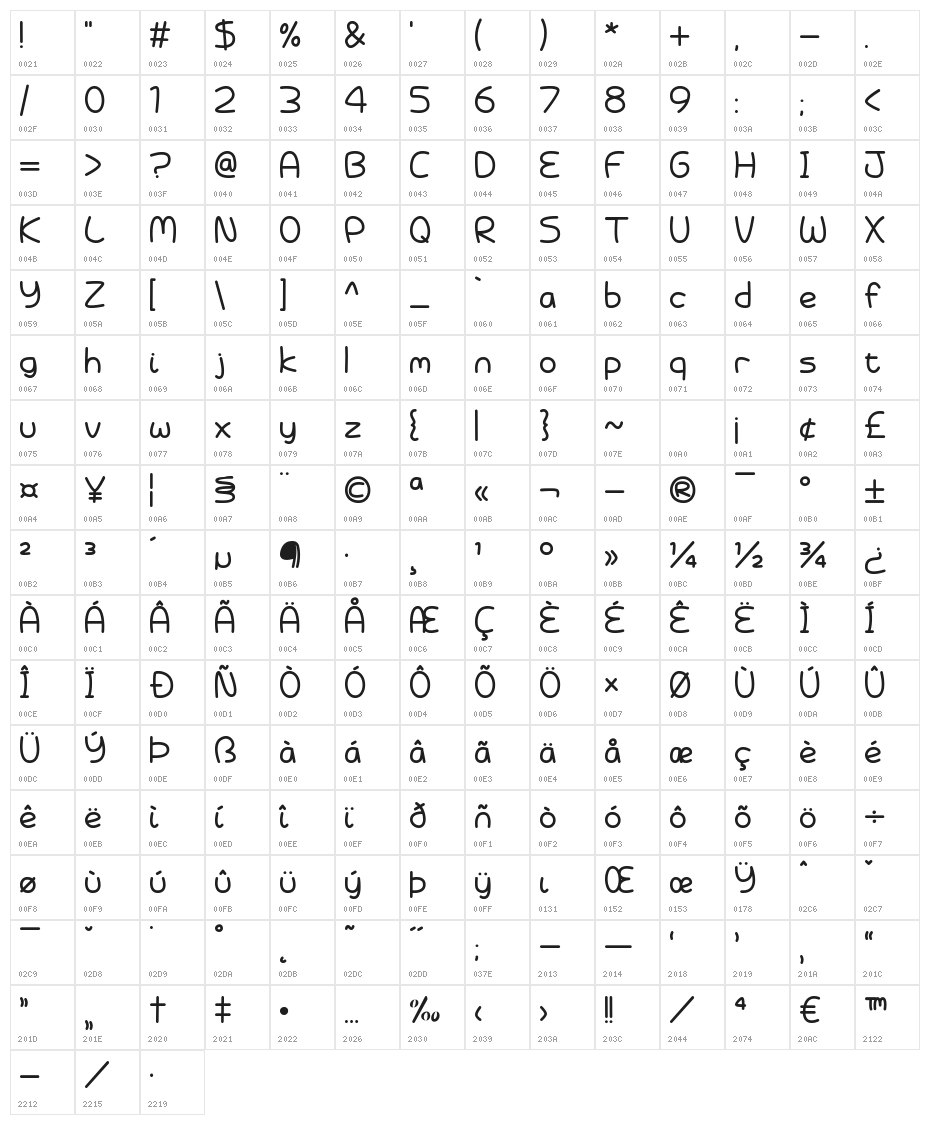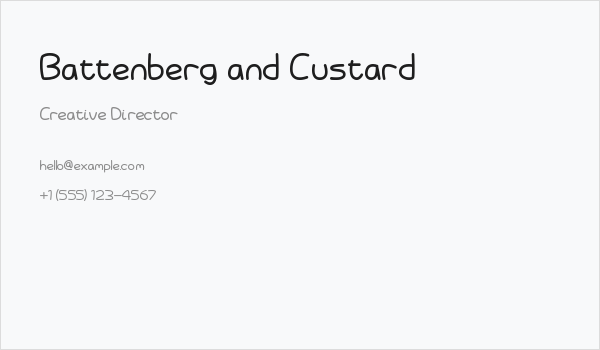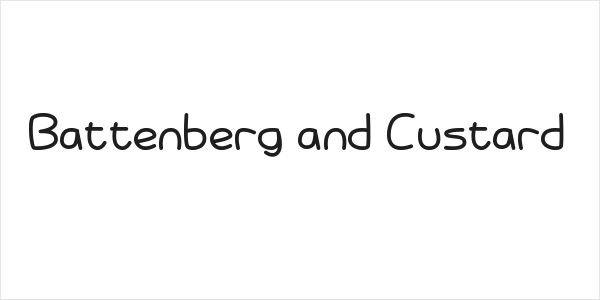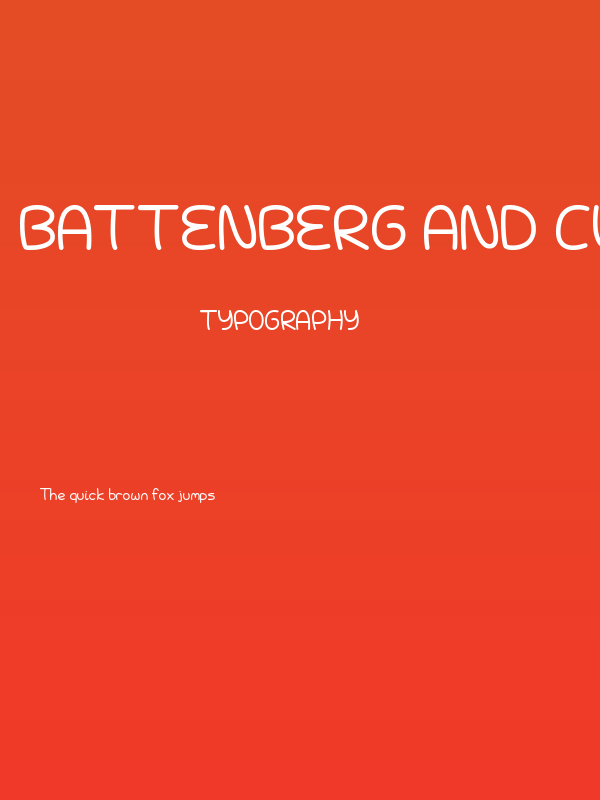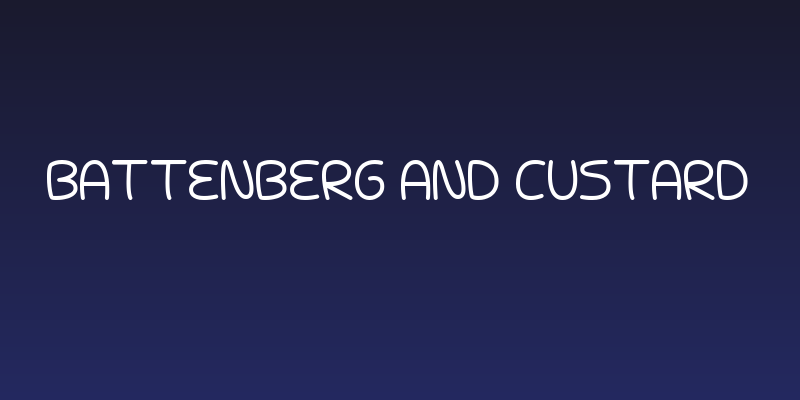
Battenberg and Custard Font
Battenberg and Custard Description
This playful and rounded font exudes a friendly and approachable vibe, characterized by its smooth curves and consistent stroke width. The letters are slightly elongated, giving them a whimsical appearance that is both casual and inviting. The font maintains a uniform thickness throughout, ensuring readability while adding a touch of fun to any text. Its simplicity and clarity make it suitable for a variety of uses, from children's books to informal branding. The numerals and special characters are crafted with the same playful style, ensuring a cohesive look across all text elements.
| Proposed Projects | Ideal for children's books, playful branding, casual invitations, and educational materials. |